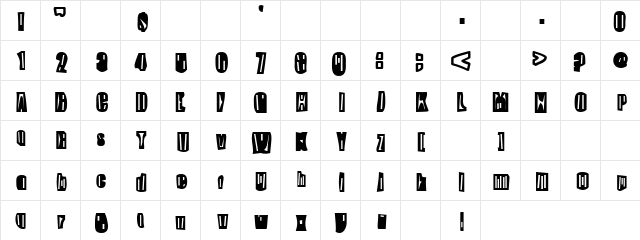
Skippy Greeny Regular
Design Context for Skippy Greeny Typeface
Skippy Greeny is a composed and adaptable typeface that performs quietly and consistently across a wide range of design contexts.